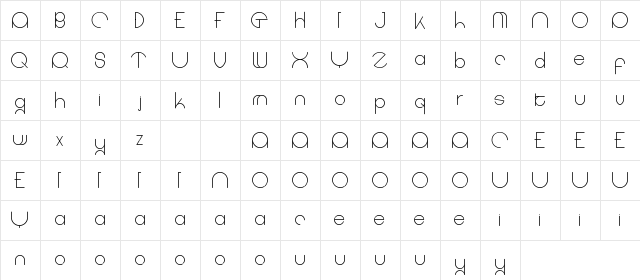
Coet Demo Light Regular Font Preview
Coet Demo Light Regular
Coet Demo Light Regular Font Details
| Foundry | Edric Studio |
| Designer | fajar Saepul Rohman |
Design Context for Coet Demo Light Typeface
Coet Demo Light takes a measured approach to typography — its balanced proportions and neutral character make it a reliable workhorse for both digital and print work. The delicate stroke weight brings airiness and refinement to layouts.